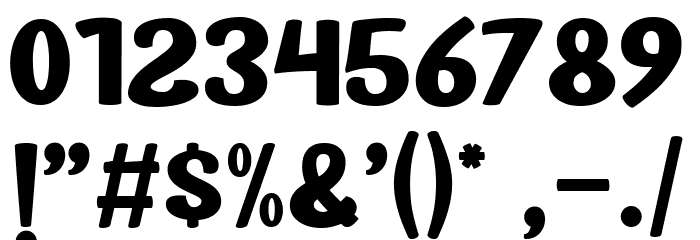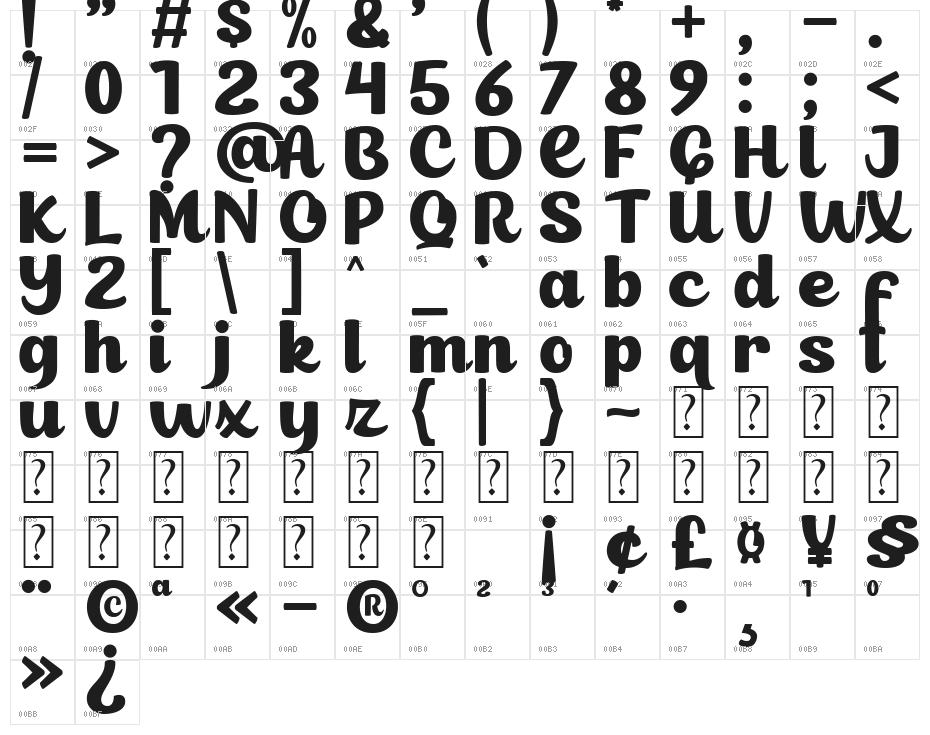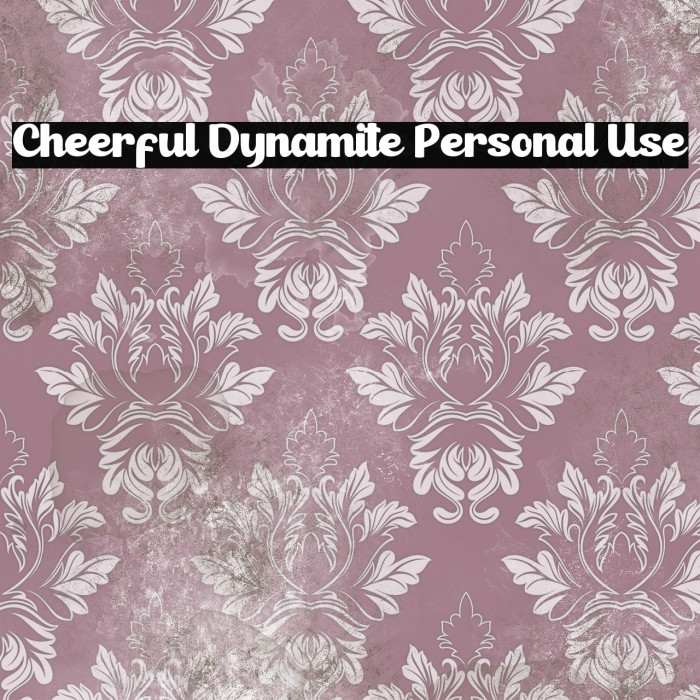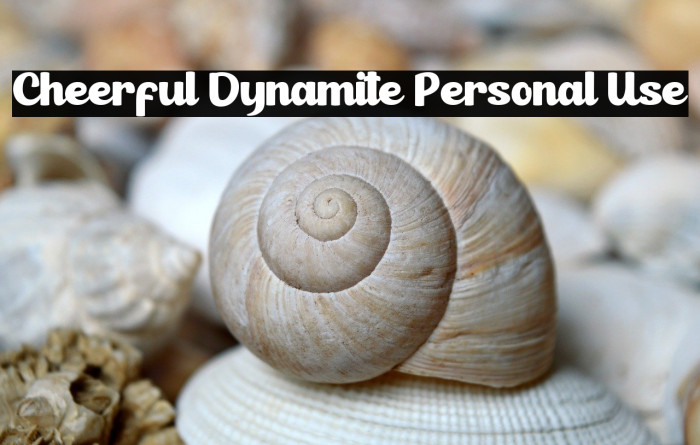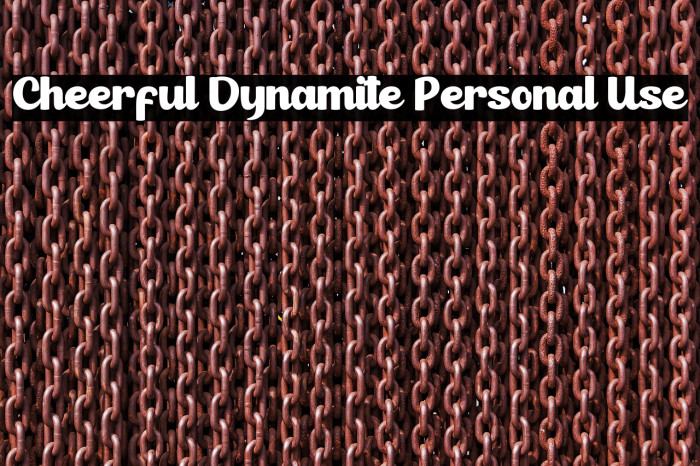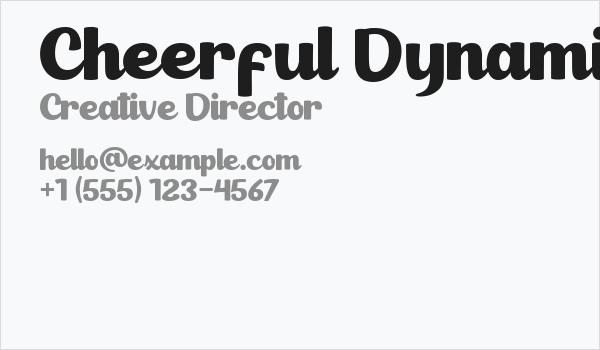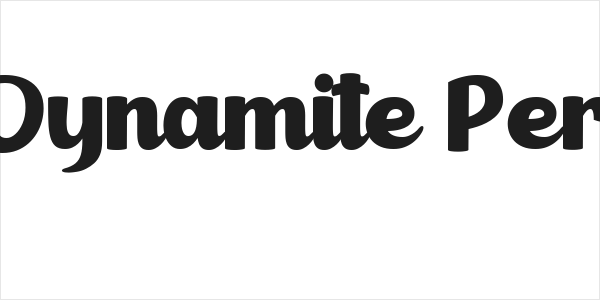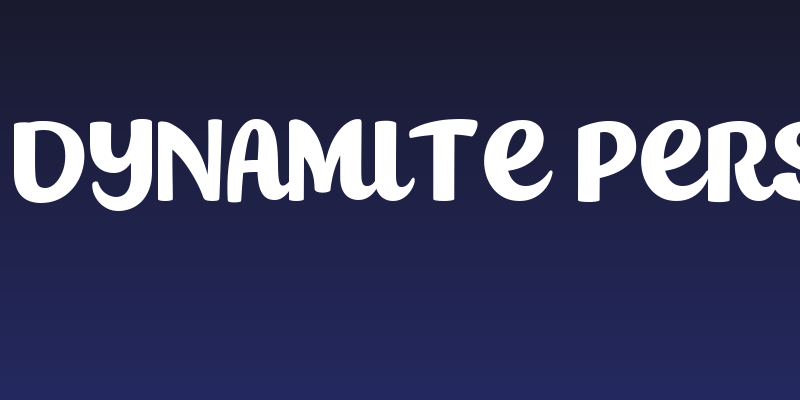
Cheerful Dynamite Personal Use Font
Cheerful Dynamite Personal Use Description
This font features a playful and bold design with rounded edges and a lively, energetic feel. The characters are thick and have a consistent weight, giving them a strong presence on the page. The uppercase letters are slightly taller than the lowercase, maintaining a uniform width that enhances readability. The numbers and special characters follow the same style, ensuring a cohesive look across all text elements. The overall appearance is friendly and approachable, making it suitable for projects that require a fun and dynamic touch.
| Overall Style | Playful, Energetic |
| Proposed Projects | Ideal for children's books, playful branding, party invitations, and casual posters. |